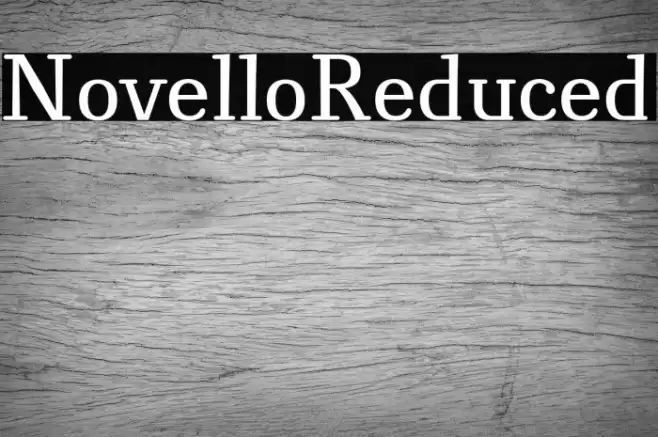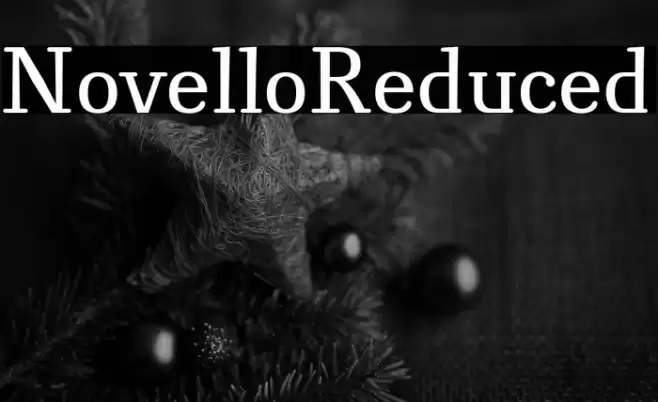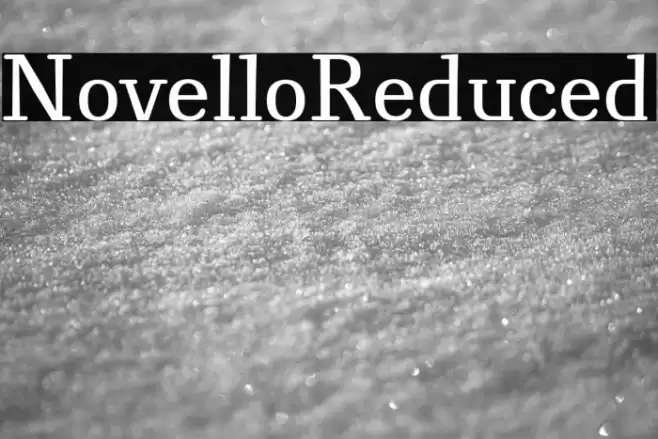
NovelloReduced Font
NovelloReduced Description
This font exhibits a classic serif style with a modern twist, characterized by its clean lines and balanced proportions. The serifs are pronounced yet not overly elaborate, providing a sense of elegance and readability. The uppercase letters are uniform and structured, while the lowercase letters maintain a consistent x-height, enhancing legibility. The font's overall appearance is sophisticated, making it suitable for both formal and contemporary applications. Its versatility is evident in the way it can be used for various design projects, from editorial layouts to branding materials.
A classic serif font with modern elegance and balanced proportions from Regular fonts.
- Proposed Projects: Ideal for editorial design, branding, book covers, and formal invitations.
- Overall Style: Classic